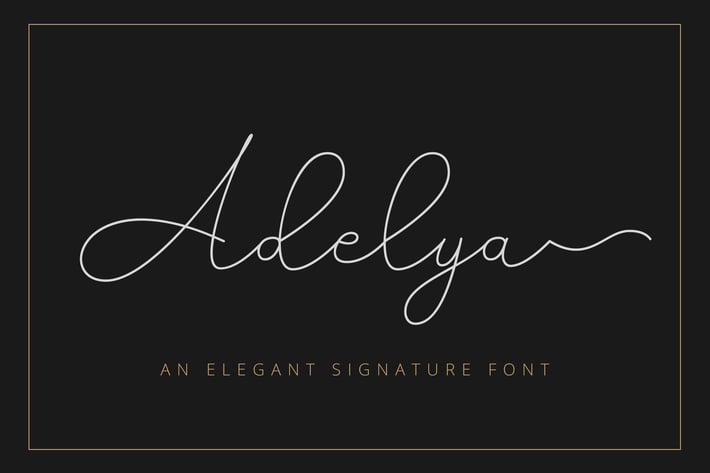
Adelya - Elegant Signature Font
Adelya - Elegant Signature Font is a free-flowing monoline, the style typeface exploits the common letter-to-letter transitions of the typical cursive hand by utilizing two style points controlled within the machinations of OpenType Contextual Alternates. It can be used to create almost all types of design projects like print materials. Just use your imagination and some graphic design set in Extras, your project will become more alive and look great than ever with one of the Adelya font.
You want to make a greeting card or a package design, or even a brand identity, craft design, any DIY project, book title, wedding invitation, identity card, packaging, or any purpose to make your art / design project look pretty and trendy? Feel free to play with all the whole alternates!
1. Uppercase and Ligatures
2. Special Ligatures ( ee oo rr ss tt)
3. Stylistic Alternates (up to 4 Style for each alphabet)
4. Numerals & Punctuations (OpenType Standard)
5. Accents (Multilingual characters) (AÀÁÂÃÄÅCÇDÐEÈÉÊËIÌÍÎÏNÑOØÒÓÔÕÖUÙÜÚÛWYÝŸỲŸÆŒßÞ)